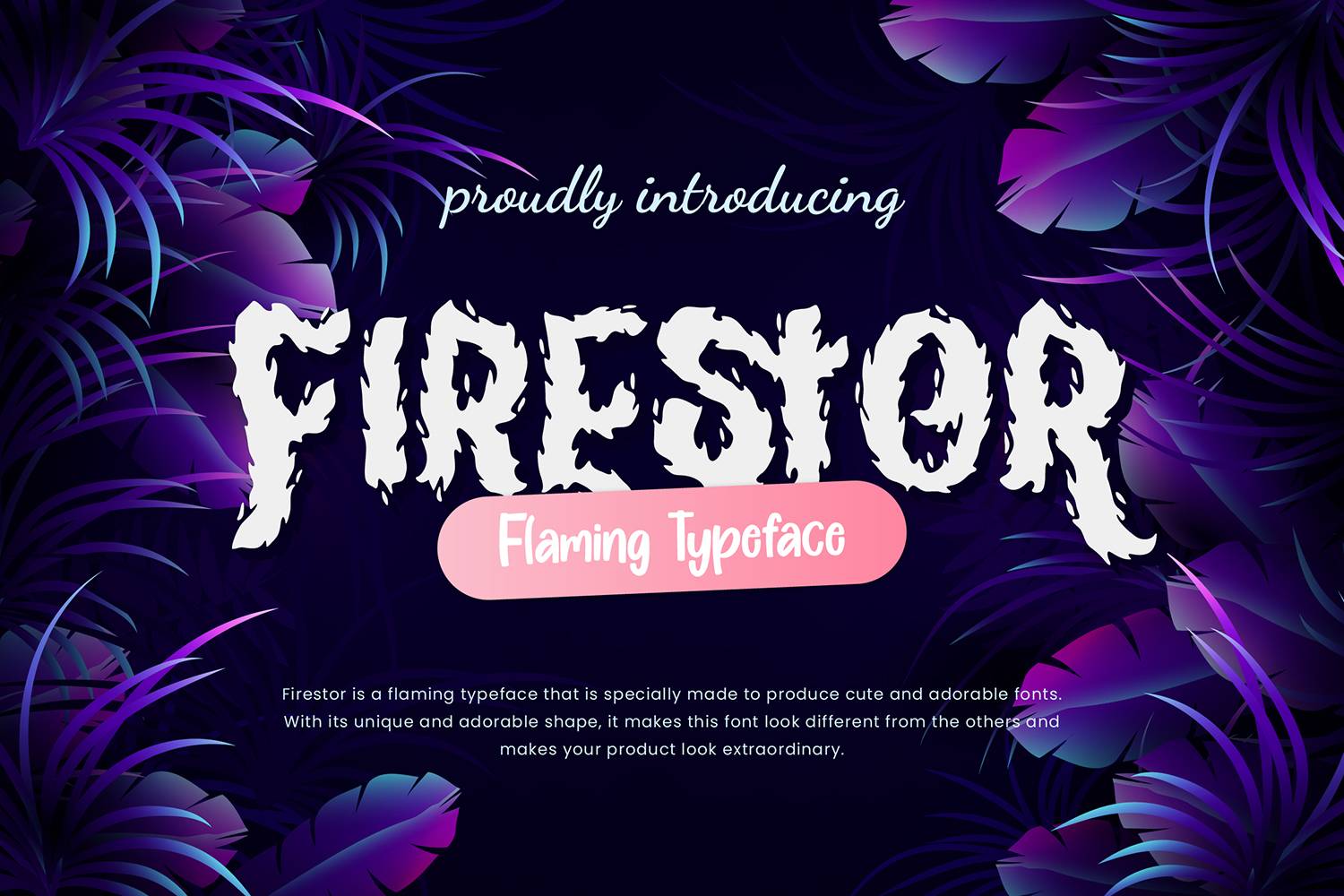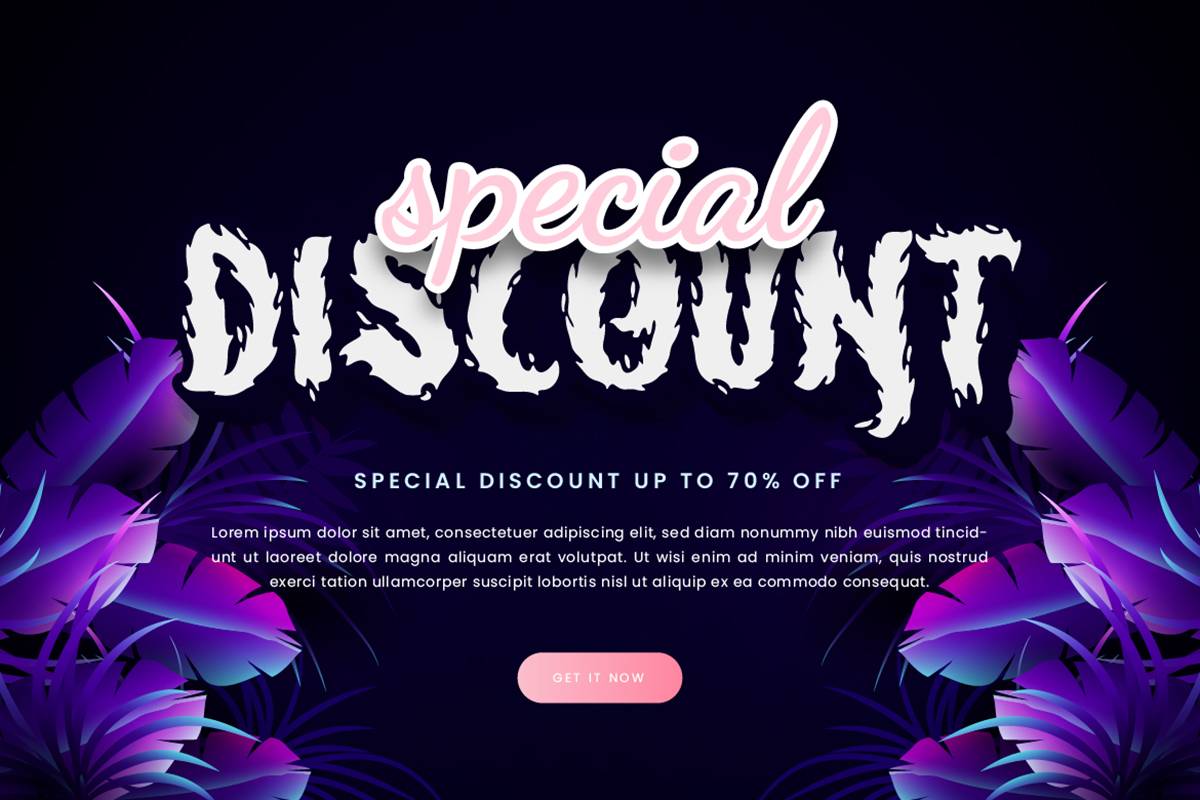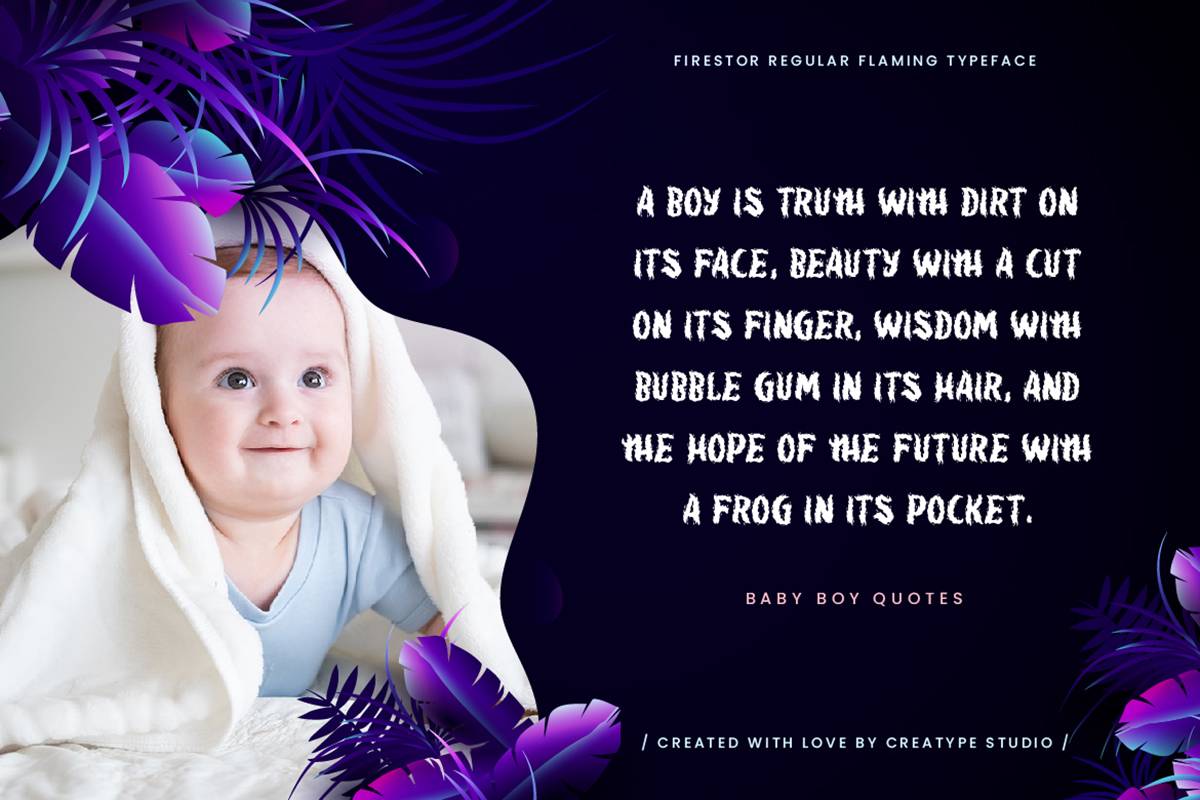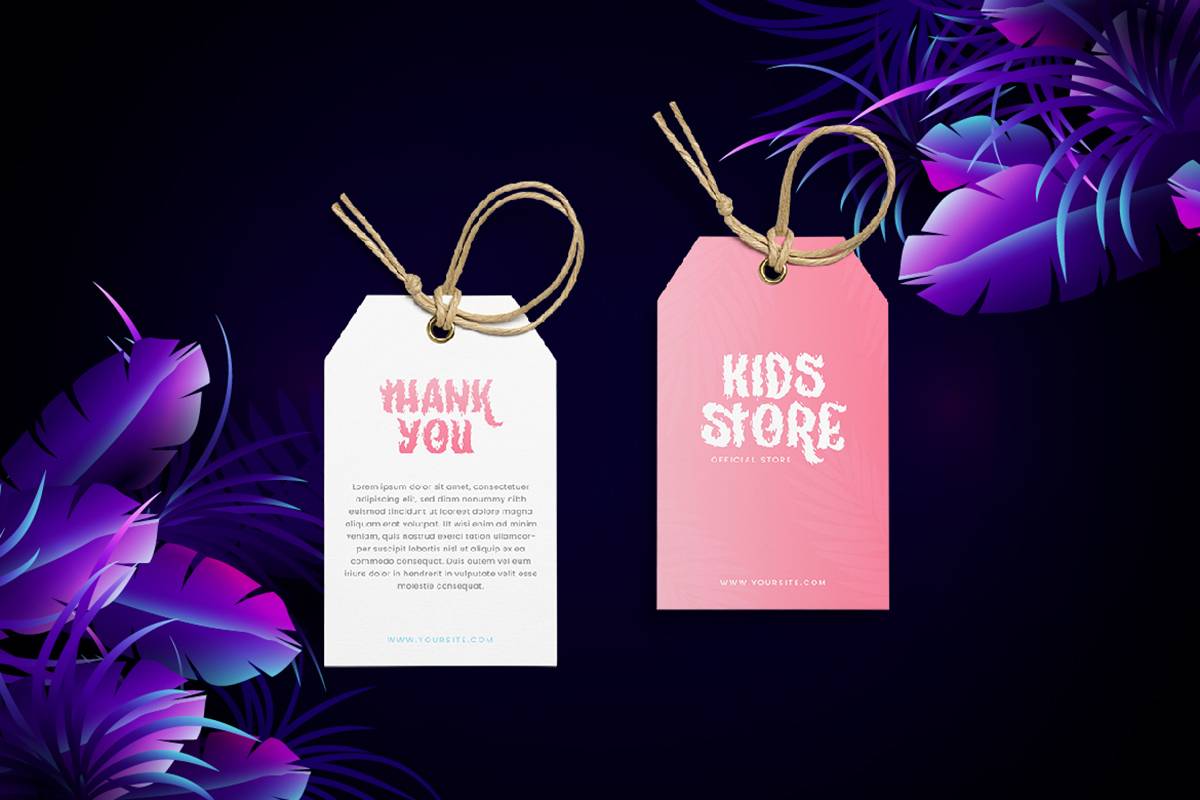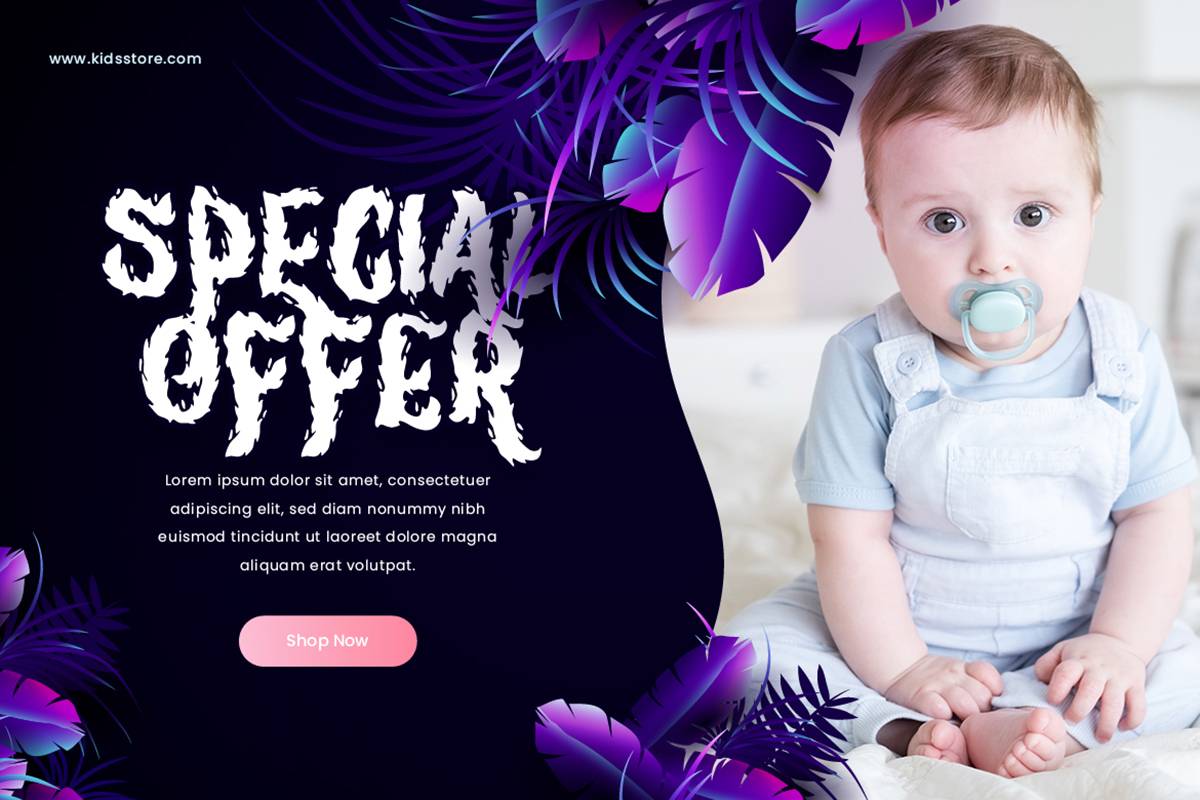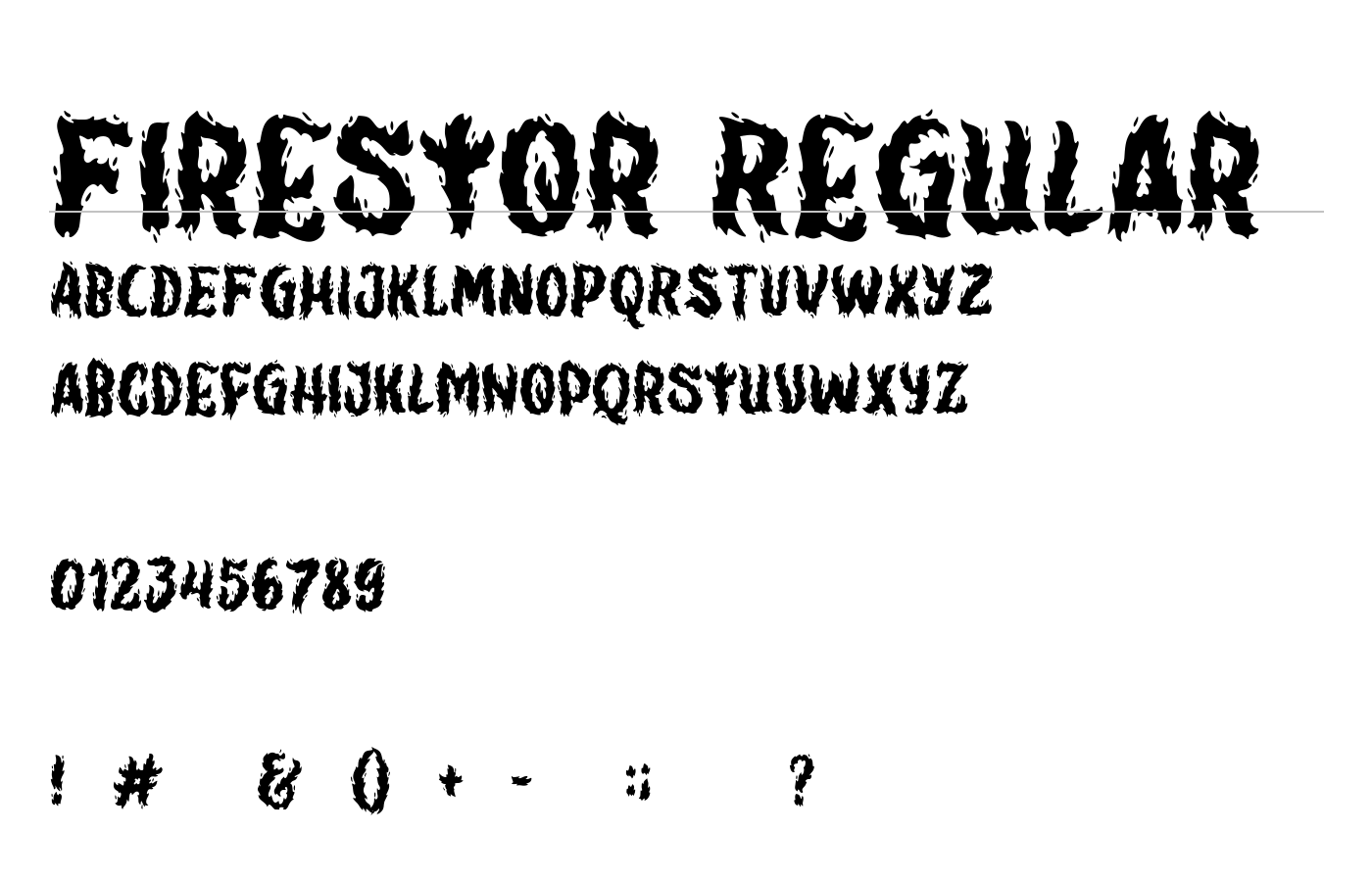
Firestor is a bold, decorative display font with a rugged, flame-inspired texture that gives it a vivid and dynamic personality. Its all-caps design and irregular, jagged edges make it perfect for eye-catching headlines, posters, and branding that seeks to convey energy, intensity, or a rebellious spirit. This font works best in creative and edgy contexts where impact and distinctiveness are key.
Firestor Font
About Firestor Font